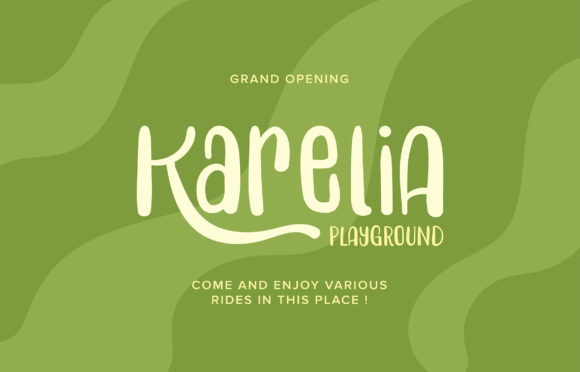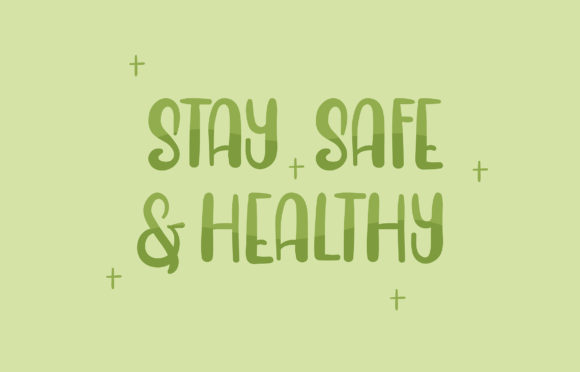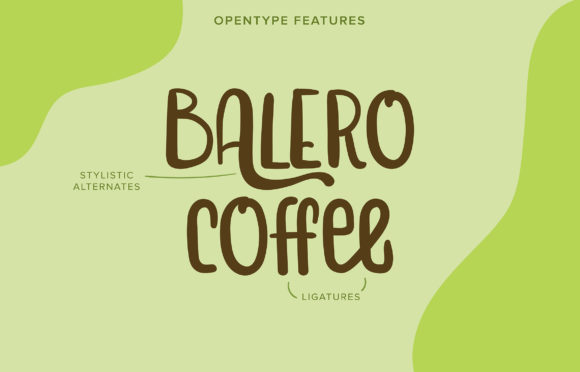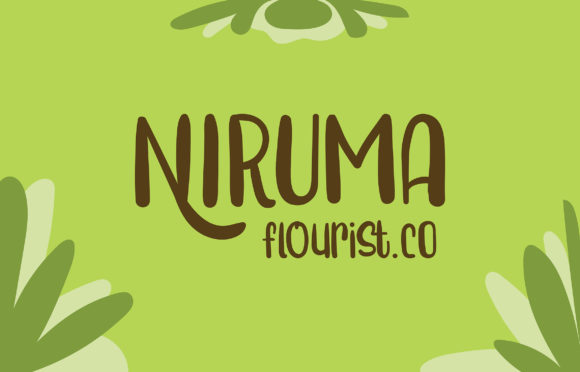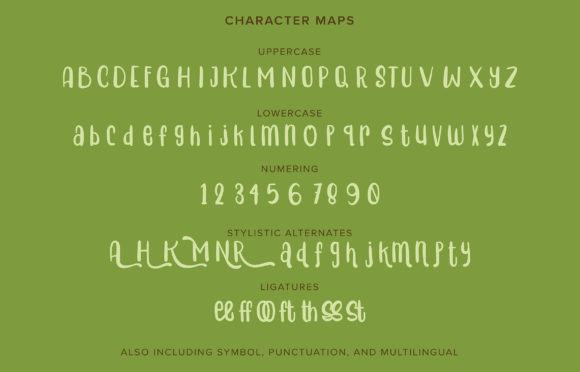
Harmonia Font
About Harmonia Font
Harmonia is a beautiful and unique handwritten font. Add it to your most creative ideas and notice how it makes them come alive. It looks gorgeous on both formal as well as non-formal designs!